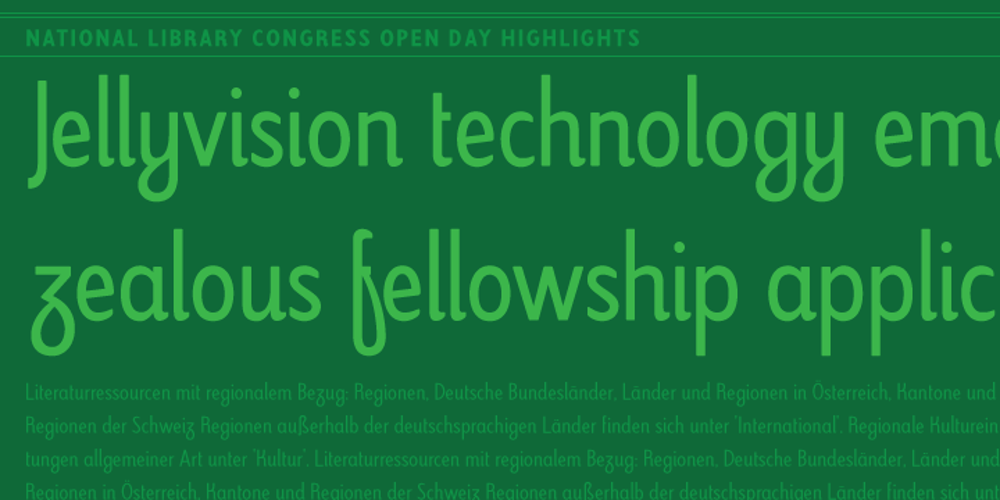
Kevlar Font Family was designed by Niels Oeltjen, Wendy Ellerton and published by Letterbox. Kevlar contains 3 styles and family package options. Kevlar was initially inspired by an obscure logo discovered in a 1960s radio-fan magazine. Of immediate interest was that the upper half of the typeface appeared to be a sans while the lower half appeared as a curious blend of a slab serif imbued with a script-like quality. First came Kevlar Bold in 2003, closely followed by its text weight companion Kevlar Regular. The original source of the inspiration as then revisited to develop the third in the set, Kevlar Slab, a truly individual mix of script-like fluency with the heavy weight base of a slab serif.